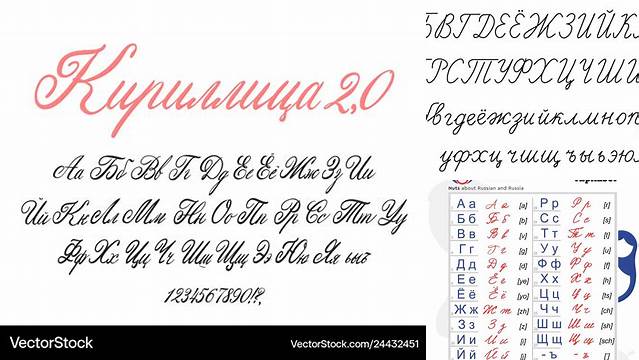
Elegant Russian Cursive Fonts: A Comprehensive Guide
1. Understanding the Beauty of Russian Cursive Fonts
Russian cursive fonts, guys, are just something else! They're so elegant and flowy, and they add a touch of sophistication to any design. But what makes them so special? Well, it's the way the letters connect and curve, creating this beautiful, almost calligraphic effect. When you are trying to understand russian fonts cursive, you need to delve into the history and evolution of this script. Russian cursive evolved from the Cyrillic script, but it took on its unique form over centuries of use. Think of it like handwriting – everyone's handwriting is a little different, and Russian cursive is like the handwriting of the Russian language itself. The beauty lies in the connections, the loops, and the flourishes that make each word a mini work of art. Understanding the basic principles of letter formation is crucial before diving into specific fonts. Key aspects include letter height, slant, and the way letters connect to each other. Mastering these basics allows you to appreciate the nuances of different cursive fonts and even start developing your own style. Imagine using these fonts for invitations, logos, or even just adding a personal touch to your digital communication. The possibilities are endless! The inherent elegance of russian fonts cursive makes them ideal for formal occasions, artistic projects, or anything that requires a touch of class. So, let's dive deeper and explore the amazing world of these fonts!
2. The History and Evolution of Russian Cursive
The history of russian fonts cursive is super interesting! It didn't just pop up overnight; it evolved over time. Initially, the Cyrillic alphabet, which is the basis for Russian, was more blocky and formal. But as people started writing more quickly and informally, the letters began to connect and flow, giving rise to cursive. Think about how your own handwriting has changed over the years – it’s the same principle! The evolution of this unique script can be traced back to medieval manuscripts, where scribes developed a flowing script to increase writing speed and efficiency. This early cursive style, known as skoropis’, featured ligatures and abbreviations, making it quite different from the printed forms of Cyrillic. Over time, the script underwent further transformations, influenced by various calligraphic styles and the need for greater clarity and legibility. By the 18th and 19th centuries, Russian cursive had largely taken its modern form, characterized by its graceful letterforms and flowing connections. It's fascinating to see how this practical need for speed and efficiency transformed into something so beautiful. The evolution was also influenced by different writing tools, from quill pens to modern ballpoints, each impacting the flow and style of the script. Understanding this history not only gives you a deeper appreciation for the art form but also helps you choose and use these fonts more effectively. Knowing where something comes from can really change how you see it, right? Using russian fonts cursive today is like tapping into a rich cultural heritage, a connection to centuries of scribes and writers who shaped the script into what it is today. So, when you use these fonts, you’re not just choosing a typeface; you're embracing a piece of history!
3. Key Characteristics of Russian Cursive Script
So, what exactly makes russian fonts cursive so unique? It's not just about slanted letters; there's a whole set of key characteristics that define it. One of the most noticeable things is how the letters connect. Unlike printed letters that stand alone, cursive letters flow into each other, creating a continuous line. This gives the script its characteristic elegance and fluidity. Understanding the connection points between letters is essential for both reading and writing cursive. Another key characteristic is the use of loops and flourishes. Many letters have distinctive loops that add to the script's visual appeal. These loops can vary in size and shape, depending on the font and the writer's personal style. The slant of the letters is also important. Russian cursive typically slants to the right, which contributes to its dynamic and flowing appearance. The consistent slant helps maintain readability and adds to the script's overall aesthetic. Additionally, the letterforms themselves are often simplified compared to their printed counterparts. This simplification makes the script faster to write but can also make it more challenging to read for those unfamiliar with cursive. For example, the letters “т” (te) and “ш” (sha) can look quite similar in cursive, and context is often necessary to distinguish them. But that's part of the fun, right? Decoding the script is like solving a little puzzle! In essence, russian fonts cursive is a beautiful blend of fluidity, connection, and simplified letterforms. These characteristics combine to create a script that is both elegant and efficient, a true reflection of its historical development. Whether you're using these fonts for design or just admiring their beauty, understanding these key characteristics will enhance your appreciation.
4. Popular Russian Cursive Fonts for Design
When it comes to design, there are tons of russian fonts cursive to choose from! It can be overwhelming, but also super exciting. Some fonts are more traditional, while others have a modern twist. It really depends on the vibe you're going for. For example, if you want something classic and elegant, you might go for a font that closely resembles traditional handwriting. These fonts often have delicate strokes and graceful loops, perfect for invitations or formal documents. On the other hand, if you're looking for something more contemporary, there are fonts that incorporate modern design elements while still maintaining the essence of cursive. These might have bolder strokes, sharper angles, or a more stylized appearance. It’s crucial to consider the readability of the font when choosing for design projects. While elegance is important, the font should also be easily legible, especially for longer texts. Experimenting with different fonts is key to finding the perfect match for your project. Try out various options and see how they look with your specific text and design elements. Popular fonts often include variations in weight and style, such as bold, italic, and condensed versions, providing flexibility for different design needs. Remember, the right font can make all the difference in conveying the right message and aesthetic. Think of the font as the voice of your design – it should speak clearly and beautifully. Exploring different russian fonts cursive is like discovering a whole new world of design possibilities. Each font has its unique personality, and finding the right one is like finding the perfect piece of the puzzle. So, go ahead and explore, and have fun with it!
5. How to Choose the Right Cursive Font for Your Project
Choosing the right russian fonts cursive for your project is like picking the perfect outfit – it needs to fit the occasion and reflect the message you want to convey. First, think about the overall tone and style of your project. Is it formal or informal? Modern or traditional? The font should align with these characteristics. For instance, a wedding invitation might call for an elegant and refined cursive font, while a casual blog post might be better suited to a more relaxed and playful style. Consider the readability of the font. While aesthetics are important, the font needs to be legible, especially for longer blocks of text. Some cursive fonts can be quite ornate, which looks beautiful but might be challenging to read if used extensively. Test the font with your specific text to ensure it’s clear and easy on the eyes. The context in which the font will be used also matters. Will it be displayed on a screen or printed on paper? Some fonts look great on screen but might not translate well to print, and vice versa. Think about the size of the text. A delicate font might look stunning in a large headline but could become illegible at smaller sizes. Similarly, a bold font might be too overpowering for a large body of text. It's also a good idea to consider the cultural connotations of the font. russian fonts cursive carries a certain cultural weight, and its use can evoke a sense of tradition and history. Make sure this aligns with the message you want to send. Ultimately, the best way to choose the right font is to experiment and trust your instincts. Try out different options, see how they look, and pick the one that feels right for your project. It’s all about finding that perfect balance between beauty and functionality.
6. Tips for Reading Russian Cursive
Reading russian fonts cursive can be a bit tricky at first, especially if you're used to printed letters. But don't worry, guys, it gets easier with practice! One of the first things to remember is that the letters connect, so you need to look at the word as a whole rather than individual letters. This flow is what gives cursive its beauty, but it can also make it challenging to decipher. Start by familiarizing yourself with the basic letterforms. Many cursive letters look quite different from their printed counterparts. For example, the letter “т” (te) can look like a lowercase “m,” and “ш” (sha) can resemble a “w.” Learning these variations is key to improving your reading skills. Pay attention to the context. Often, you can figure out a word based on the surrounding words and the overall meaning of the sentence. This is especially helpful when dealing with letters that look similar. Practice makes perfect! The more you read cursive, the better you'll become at recognizing the letters and words. Try reading short passages or looking at handwritten notes to hone your skills. Use online resources and practice tools. There are many websites and apps that offer exercises and quizzes to help you learn to read russian fonts cursive. These can be a fun and effective way to improve your skills. Don’t be afraid to slow down. When you're first learning, it's okay to read slowly and carefully. Speed will come with time and practice. Focus on accuracy over speed, and you'll see your reading skills improve steadily. Remember, even native Russian speakers sometimes have trouble with cursive, especially if the handwriting is messy. So, be patient with yourself and celebrate your progress along the way. Reading cursive is like learning a new skill – it takes time and effort, but it's totally worth it in the end!
7. Common Mistakes to Avoid When Using Cursive Fonts
Using russian fonts cursive can add a touch of elegance to your designs, but it’s important to avoid some common pitfalls. One of the biggest mistakes is overusing cursive fonts. While they can look beautiful, cursive fonts are often less legible than standard fonts, especially for large blocks of text. Using cursive for headlines or short phrases can be effective, but avoid using it for entire paragraphs or documents. Another mistake is choosing a font that is too ornate or difficult to read. Some cursive fonts are highly stylized, with elaborate flourishes and loops. While these might look visually appealing, they can be challenging to decipher, particularly for readers who are not familiar with cursive. Always prioritize readability over aesthetics. Consider the context in which the font will be used. A cursive font that looks great in a large format, such as a poster, might not be suitable for a small format, like a business card. The size of the text can affect readability, so choose a font that works well in the intended size. Be mindful of the cultural implications of using russian fonts cursive. If you’re using it in a project that targets a Russian-speaking audience, make sure the font aligns with the tone and message you want to convey. Using a font inappropriately can be seen as disrespectful or insensitive. Don’t mix too many fonts in a single design. Using multiple cursive fonts, or combining cursive with other ornate fonts, can create a cluttered and confusing look. Stick to a maximum of two fonts in a design, and make sure they complement each other. Always test your design with a wide audience. What looks clear and legible to you might not be the same for others. Get feedback from different people to ensure your font choice is effective and communicates your message clearly. By avoiding these common mistakes, you can use russian fonts cursive effectively and create visually appealing and professional designs.
8. Creating Your Own Russian Cursive Font
Okay, guys, let's talk about something super cool – creating your own russian fonts cursive! It might sound intimidating, but it's actually a really fun and rewarding process. Plus, you'll end up with a font that's totally unique to you. First, you'll need to get a good grasp of the basic principles of Russian cursive. Understand how the letters connect, the typical slant, and the common letterforms. Practice writing the letters and words by hand to get a feel for the flow of the script. Once you have a solid understanding of the basics, you can start experimenting with your own style. Think about what kind of look you want to achieve. Do you want a traditional, elegant font, or something more modern and playful? Play around with different variations of the letters, loops, and flourishes. There are several software programs you can use to create your font. Programs like FontLab Studio, Glyphs, and BirdFont allow you to draw your letters digitally and convert them into a font file. These programs offer a range of tools and features to help you create a professional-quality font. Start by sketching your letters on paper. This will give you a chance to refine your designs before you start working digitally. Once you're happy with your sketches, you can scan them or use them as a reference when drawing your letters in the font software. Pay attention to the spacing and kerning. The space between letters is just as important as the letters themselves. Make sure the letters are evenly spaced and that the kerning (the space between specific pairs of letters) is consistent. Test your font extensively. Type out different words and phrases to see how your font looks in various contexts. Get feedback from others and make adjustments as needed. Creating your own russian fonts cursive is a journey. It takes time, patience, and a lot of practice. But the end result – a font that's uniquely yours – is totally worth it. So, grab a pen and paper (or your digital tools) and start creating!
9. The Impact of Cursive Fonts on Russian Culture
Russian fonts cursive isn't just a way of writing; it's a part of Russian culture! Think about it – handwriting is personal, and cursive is like the handwriting of the Russian language itself. It carries a certain weight and history with it. Cursive has traditionally been the standard for handwriting in Russia, used in schools, personal letters, and official documents. It’s a skill that every Russian child learns, and it’s deeply ingrained in the culture. The elegance and fluidity of cursive reflect the artistic sensibilities of Russian culture. The flowing lines and graceful letterforms are reminiscent of calligraphy, adding a touch of sophistication to written communication. Cursive is often associated with tradition and formality. While printed fonts are commonly used in modern media and digital communication, cursive is still preferred for certain contexts, such as formal invitations or handwritten notes. This gives it a sense of personal touch and authenticity. The ability to read and write cursive is seen as a sign of literacy and education. While younger generations are increasingly using digital devices for communication, cursive still holds a significant place in the educational system. In a way, russian fonts cursive is a link to the past. It connects modern Russians to generations of writers, poets, and thinkers who used cursive to express their thoughts and ideas. It's a tangible connection to their cultural heritage. The use of cursive in art and design can evoke a sense of Russian identity. Many designers use cursive fonts to add a touch of Russian flair to their projects, whether it's for branding, advertising, or artistic purposes. So, when you're using or admiring russian fonts cursive, remember that you're engaging with a rich cultural tradition. It's more than just a script; it's a reflection of the Russian soul.
10. Resources for Learning and Practicing Russian Cursive
Want to dive deeper into the world of russian fonts cursive? Awesome! There are tons of resources out there to help you learn and practice. Whether you're a beginner or looking to refine your skills, there's something for everyone. Online courses and tutorials are a great place to start. Websites like Coursera, Udemy, and YouTube offer a variety of courses on Russian handwriting, including cursive. These resources often provide structured lessons, exercises, and feedback to help you improve. Language learning apps like Duolingo and Memrise can also be helpful. While they may not focus exclusively on cursive, they can help you familiarize yourself with the Russian alphabet and basic vocabulary, which is essential for reading and writing cursive. There are also many websites specifically dedicated to Russian handwriting. These sites often offer interactive exercises, practice sheets, and dictionaries of cursive letterforms. They can be a valuable tool for self-study. Practice books and workbooks are another excellent resource. Look for books that provide step-by-step instructions and plenty of space to practice writing. These books often include exercises for both individual letters and full words. Native Russian speakers can be a fantastic resource. If you know someone who is fluent in Russian, ask them for help and feedback. They can provide valuable insights and tips on proper letter formation and flow. Online communities and forums are a great place to connect with other learners. Share your progress, ask questions, and get support from fellow students. It's also a good way to find practice partners or language exchange partners. Don't forget the power of immersion. Surround yourself with Russian language and culture. Watch Russian movies, listen to Russian music, and try reading Russian texts (including cursive). The more you immerse yourself in the language, the easier it will become to understand and use. Learning russian fonts cursive takes time and practice, but with the right resources and a little dedication, you'll be writing beautifully in no time!